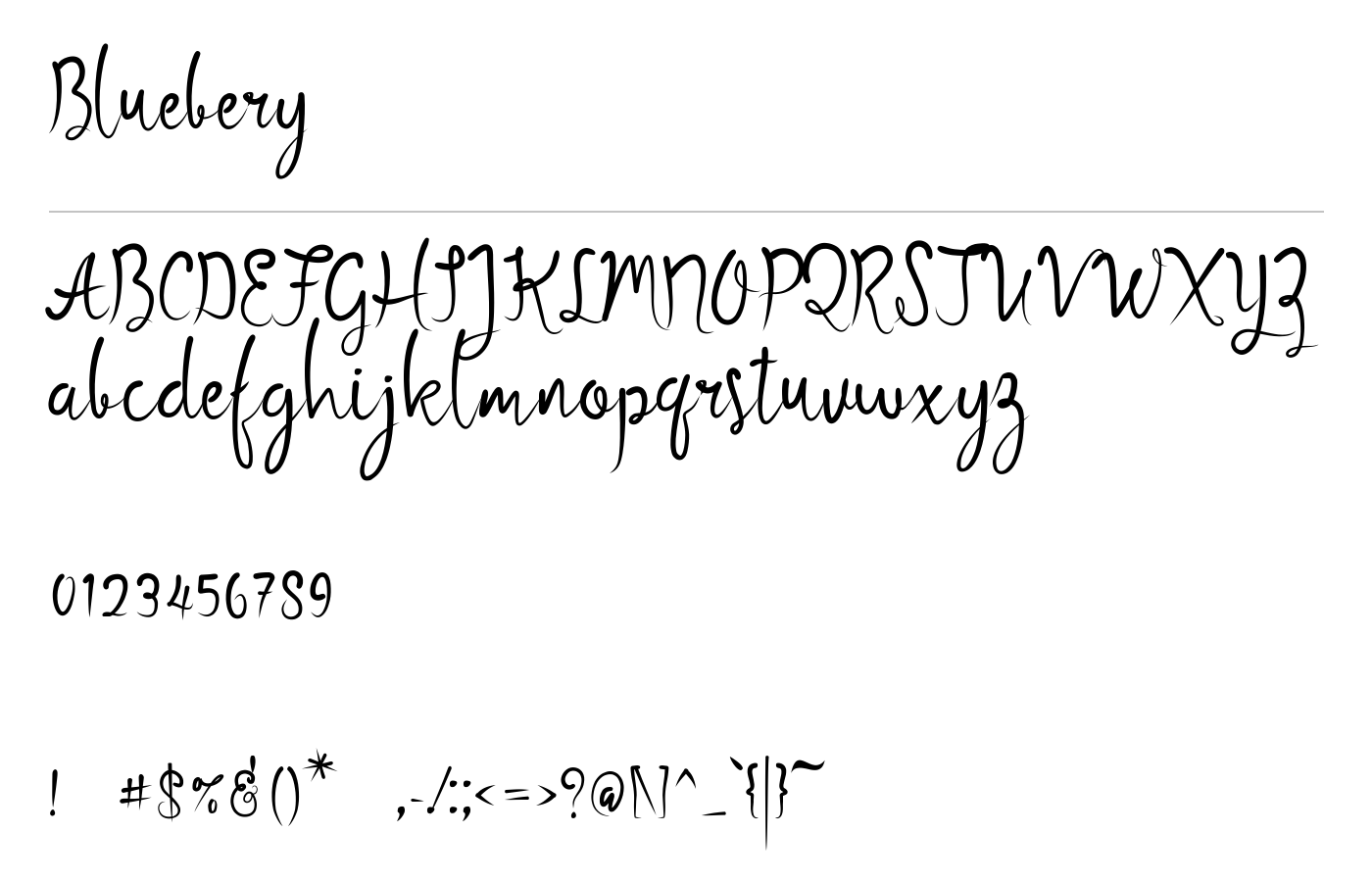
Bluebery is a playful, handwritten script font with a light weight and tall, slender letterforms that convey a casual yet elegant feel. Its slightly irregular strokes and loops give it a whimsical charm perfect for creative branding, invitations, and lifestyle projects where a personal touch is desired. This font works best in headlines and decorative text, adding a friendly, artistic vibe without overwhelming the design.
Bluebery Font
About Bluebery Font
| Font family | Bluebery Font |
| Designer | Rachma |